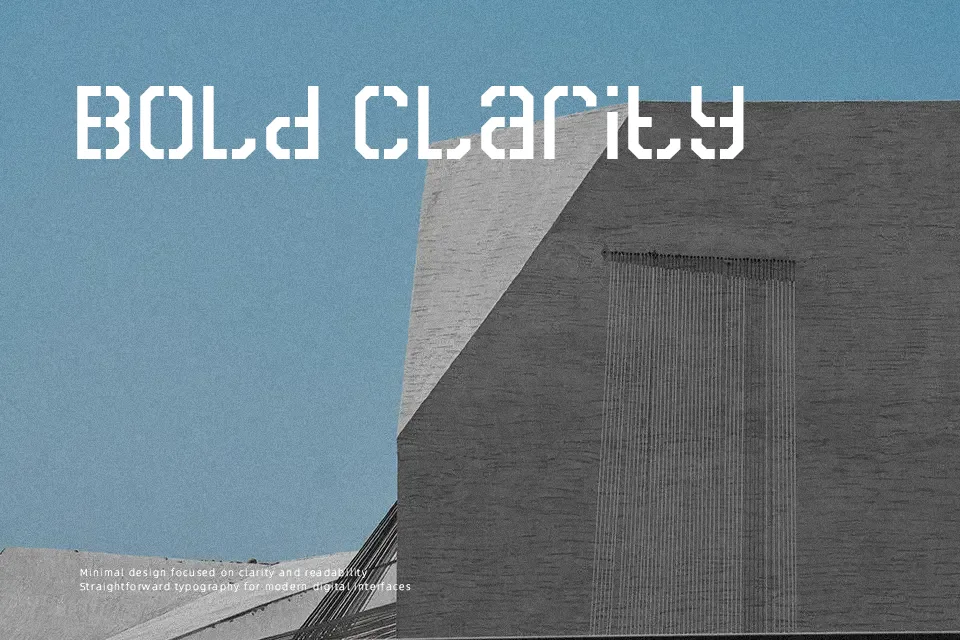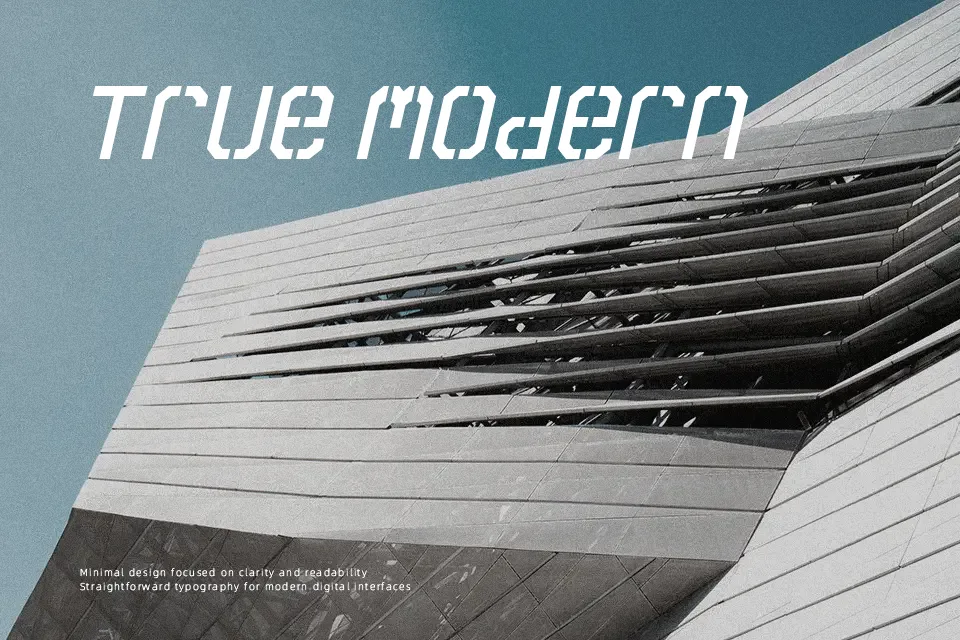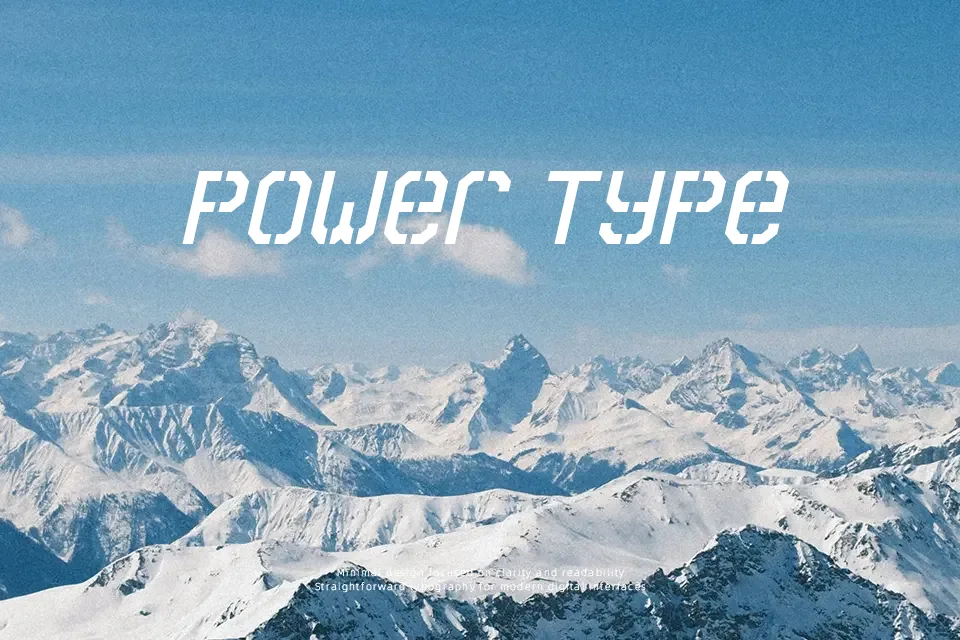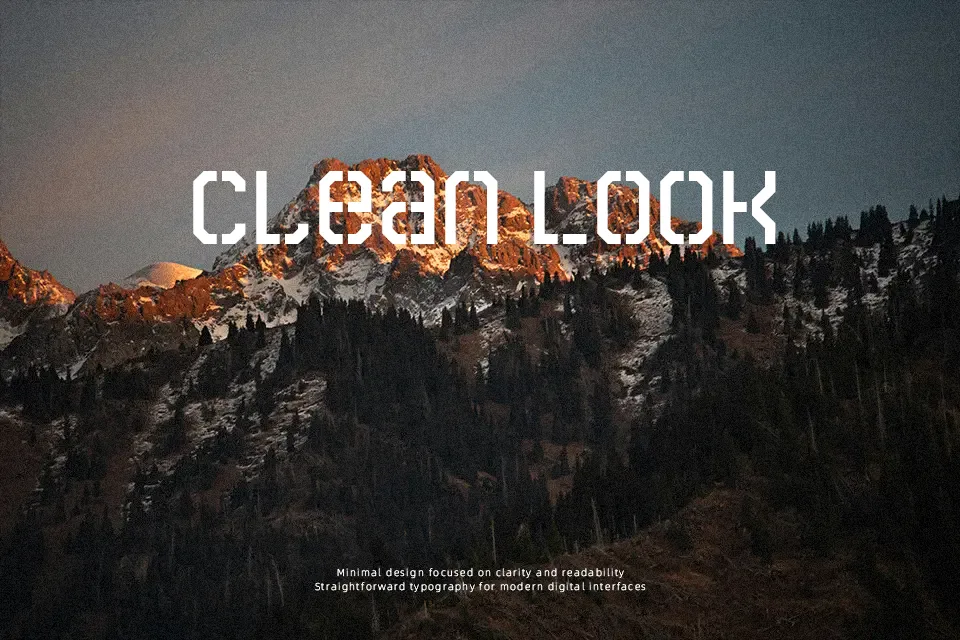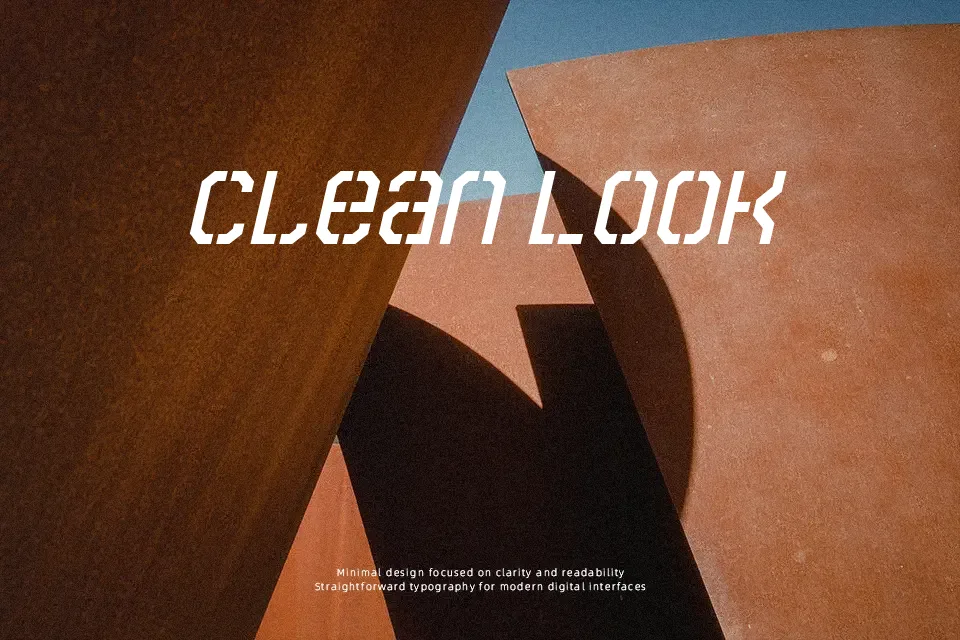
Carbon Mono Font
Carbon Mono Font delivers a rugged mechanical aesthetic through uniform widths and precise geometric breaks across every stroke. The letterforms exhibit consistent heavy weighting, squared corners, and generous interior counters that emphasize an industrial identity. Consistent spacing supports predictable grid alignment across digital dashboards, electronic badges, and esports banners. In practice, the robust horizontal segments maintain sharp legibility when rendered at prominent headline scales. However, the heavy stems and segmented counters reduce reading comfort across continuous body copy and small mobile captions. For striking title treatments and tactical branding projects, the design provides an authoritative, utilitarian presence.
Best For: gaming interface displays, esports team branding, tactical packaging labels, sci-fi poster headlines
Not Ideal For: long editorial paragraphs, small interface captions, legal contract body text, mobile book reading
Perfect for gaming, headline, and packaging, with a bold and display style.